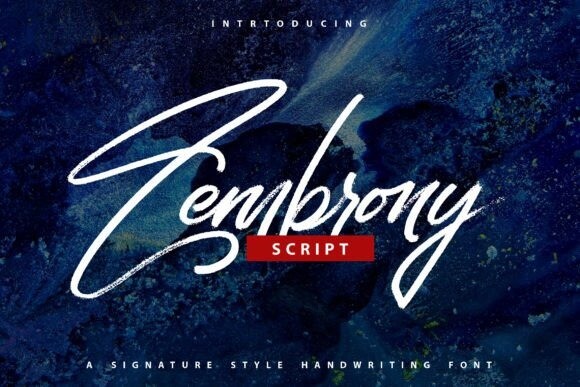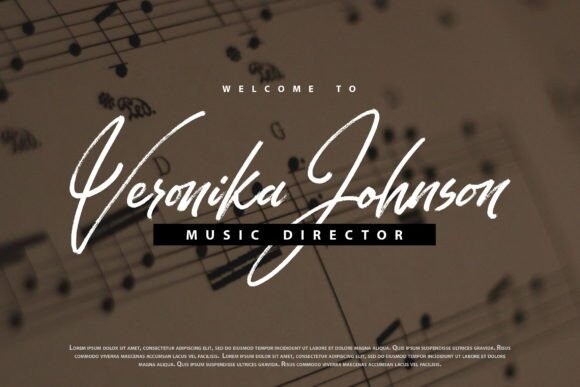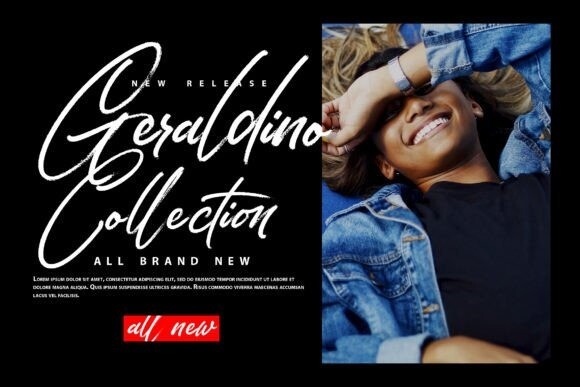
Zembrony Font
Zembrony – Signature Style Handwritten font. It will look so beautiful on invitations like greeting cards, branding materials, business cards, quotes, posters, and more! This font is PUA encoded, which means you can access all of the glyphs and swashes with ease!